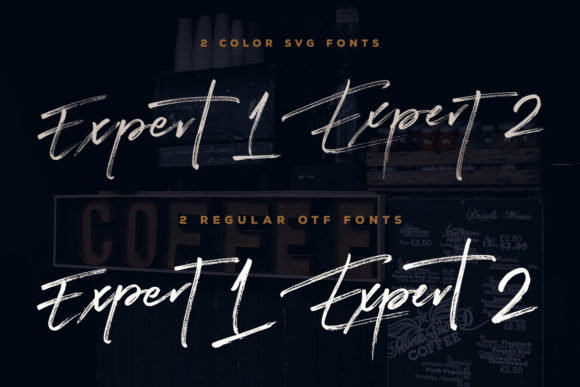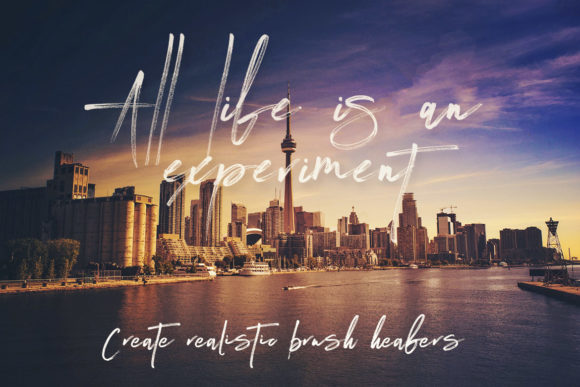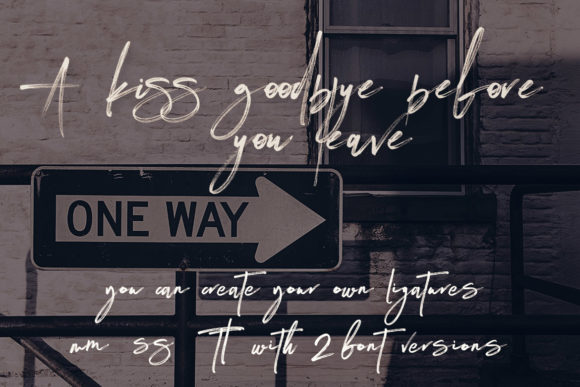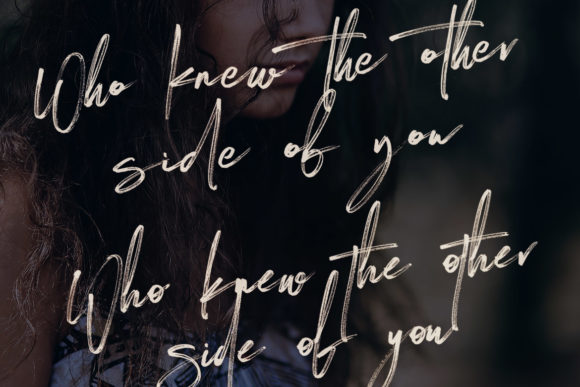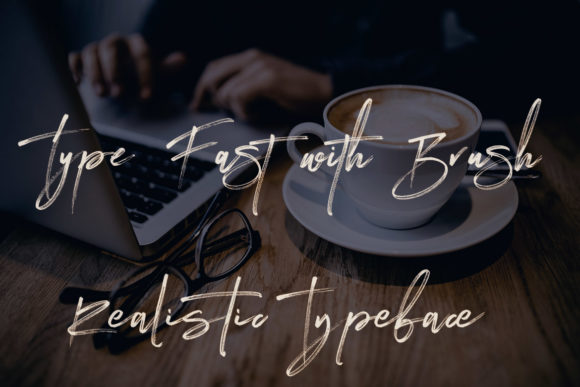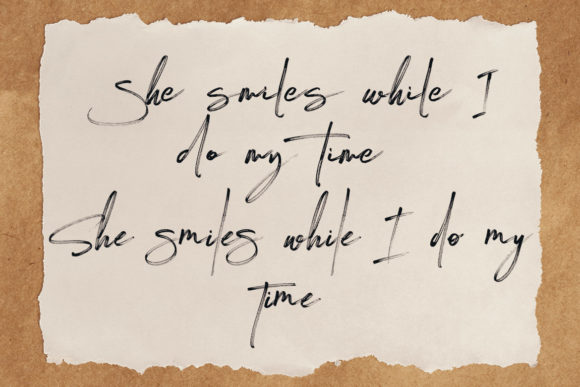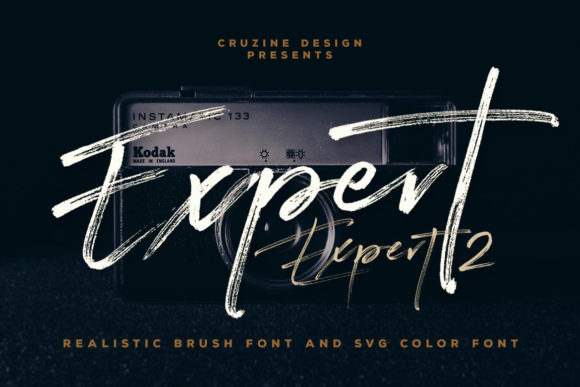
Unleash Your Creativity with Expert Font: The Ultimate Guide
Are you a designer, crafter, or DIY enthusiast looking for a font that can add a touch of personality to your projects? Look no further than Expert Font, a fun and bold handwritten font with a cool vibe that’s sure to inspire your creativity. In this article, we’ll dive into the unique charm of Expert Font, its features, and how you can use it to take your designs to the next level.
What is Expert Font?
Expert Font is a modern, handwritten font that’s perfect for designers and crafters who want to add a personal touch to their work. With its bold and playful style, Expert Font is ideal for creating eye-catching headlines, titles, and text that demands attention. Whether you’re working on a branding project, crafting a social media post, or designing a flyer, Expert Font is the perfect choice.
The Unique Charm of Expert Font
So, what sets Expert Font apart from other fonts? For starters, its unique charm lies in its hand-drawn feel, which gives it a distinctly human touch. The font’s bold lines, irregular shapes, and quirky flair make it perfect for designs that require a bit of personality. With Expert Font, you can add a dash of whimsy, humor, or friendliness to your text, making it more relatable and engaging to your audience.
Key Features of Expert Font
- Bold and Playful Style: Expert Font is designed to make a statement with its bold and playful style that’s perfect for headlines, titles, and text.
- Handwritten Feel: The font’s hand-drawn feel gives it a distinctly human touch that’s perfect for designs that require a personal touch.
- Unique Character Set: Expert Font comes with a unique character set that includes uppercase and lowercase letters, numbers, and punctuation marks.
- Easy to Read: Despite its bold style, Expert Font is easy to read, making it perfect for body text and captions.
How to Use Expert Font in Your Designs
Now that you know more about Expert Font, let’s explore how you can use it in your designs. Here are a few ideas to get you started:
- Branding Projects: Use Expert Font as a logo font or as a text font for your branding projects, such as business cards, brochures, and letterheads.
- Social Media Graphics: Add a touch of personality to your social media graphics, such as Facebook posts, Instagram stories, and Twitter headers, with Expert Font.
- Flyers and Posters: Use Expert Font to create eye-catching headlines and titles for your flyers and posters.
- Crafting and DIY Projects: Add a personal touch to your crafting and DIY projects, such as handmade cards, gift tags, and scrapbook pages, with Expert Font.
Tips and Tricks for Working with Expert Font
Here are a few tips and tricks to help you get the most out of Expert Font:
- Experiment with Font Sizes: Don’t be afraid to experiment with different font sizes to create visual interest and hierarchy in your designs.
- Pair with Other Fonts: Pair Expert Font with other fonts to create a unique and interesting contrast.
- Use in Combination with Images: Use Expert Font in combination with images to create a visually appealing design.
In conclusion, Expert Font is a fun and bold handwritten font with a cool vibe that’s perfect for designers and crafters who want to add a touch of personality to their projects. With its unique charm, bold style, and easy-to-read design, Expert Font is the perfect choice for a wide range of design applications. So why wait? Get inspired by Expert Font today and take your designs to the next level!